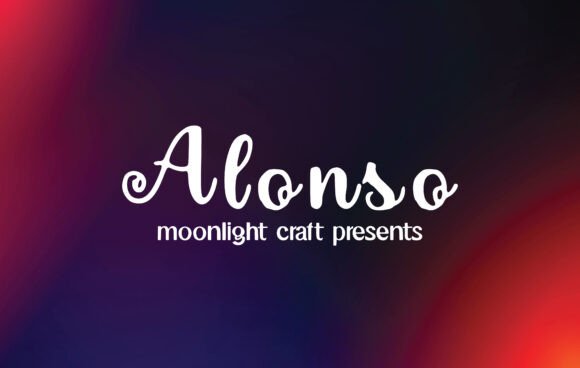
The Designer’s Delight: Exploring the Lovely Alonso Font
I’ll never forget the time I was working on a branding project for a new coffee shop. My client wanted a logo that was both modern and vintage, with a dash of playfulness. As I scrolled through font after font, nothing seemed quite right. That’s when I stumbled upon Alonso Font, a lovely and beautiful handwritten font that instantly caught my eye. In this article, I’ll share my experience with Alonso Font, its features, and how to make the most of it in your designs.
So, what makes Alonso Font so special? Here are a few things I love:
- ✨ Unique and elegant handwritten style that’s perfect for branding and logos
- 💫 Beautifully crafted to add a touch of sophistication to any design
- 🎨 Versatile and adaptable to various design contexts
Of course, no font is perfect, and Alonso Font has a few quirks:
- 🤔 Some letters, like the uppercase “Q” and “J”, might require a bit of adjustment to fit perfectly in your design
- ⚠️ Limited availability of certain OpenType features, which might limit its use in certain software
The Story Behind Alonso Font
Alonso Font was designed by a talented type designer who wanted to create a font that was both elegant and approachable. Inspired by traditional handwriting, Alonso Font was crafted to bring a touch of warmth and personality to any design. Whether you’re a designer, crafter, or creative hobbyist, Alonso Font is sure to become a favorite in your font collection.
| What type of designs is Alonso Font best suited for? | Alonso Font is perfect for creating eye-catching logos, branding, and quotes. Its elegant and refined style makes it suitable for a wide range of designs, from modern and minimalist to vintage and playful. |
| Is Alonso Font available in different weights or styles? | Currently, Alonso Font is available in a single weight. However, its elegant and refined style makes it versatile enough to be used in various design contexts. |